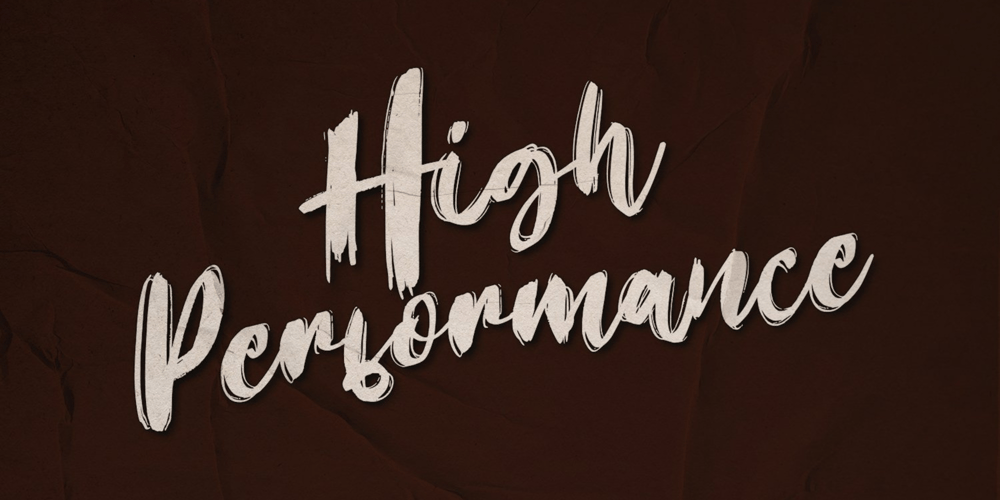
High Performance Font Family was designed by Irpan Maulana and published by Sabrcreative. High Performance contains 1 styles and family package options. Unleash the power of creativity with the High Performance Font, a captivating display hand brush typeface designed to elevate your designs. Whether you’re crafting attention-grabbing headlines, posters, or branding materials, this font adds a dynamic and expressive flair to your work. Its seamless blend of uppercase and lowercase characters provides versatility, ensuring your typography stands out with a personalized touch.